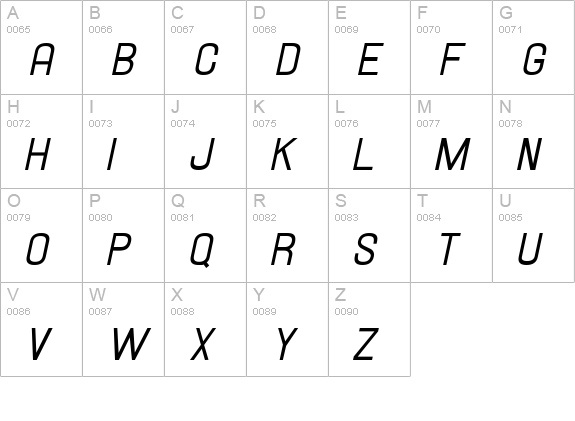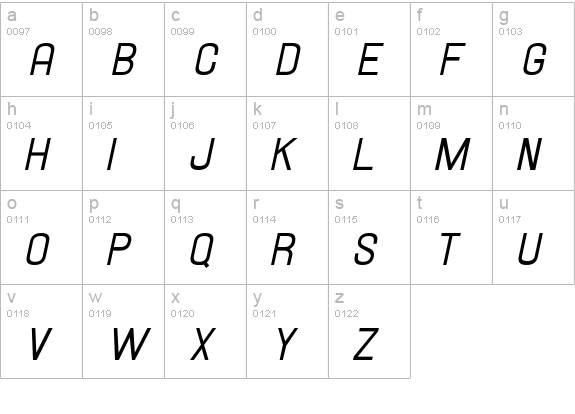
Hallandale Italic JL is a distinctive, italic variant in the Hallandale typeface family \xE2\x80\x94 well suited to design and typography projects.
Hallandale Italic JL is a stunning font that exudes elegance and sophistication. With its sleek and stylish design, this font is perfect for adding a touch of class to any project. The italicized letters add a sense of movement and grace, making it ideal for use in headings, titles, or invitations. What sets Hallandale Italic JL apart is that it is not only visually appealing, but it is also free to download. That's right, you can enhance your designs with this beautiful font without having to spend a dime. It is freely available to download at FontsMarket.com, making it easily accessible to anyone in need of a high-quality font. Whether you are a professional designer, a student working on a project, or simply someone who appreciates beautiful typography, Hallandale Italic JL is a must-have in your font collection. Its versatility allows it to be used in a wide range of projects, from branding and packaging to wedding invitations and social media graphics. With Hallandale Italic JL, you can effortlessly elevate your designs and make them stand out from the crowd. Its clean lines, balanced proportions, and timeless appeal make it a font that will never go out of style. So why wait? Download Hallandale Italic JL today and take your designs to the next level.